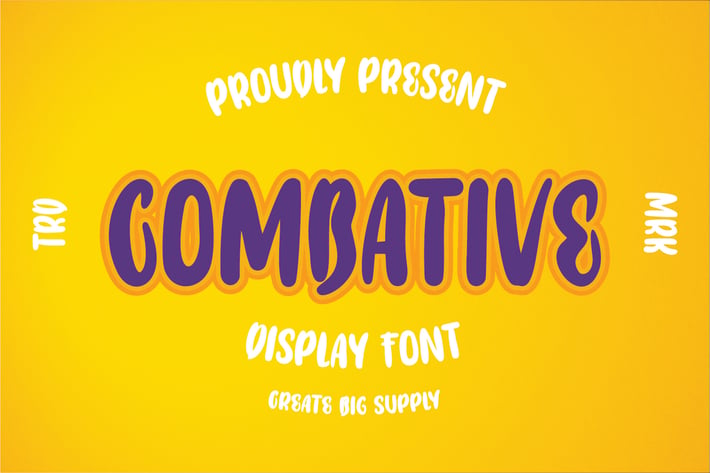
Combative - Display Font
Combative display Font. This type of font is very suitable to be applied especially to logos, and various other formal forms such as invitations, labels, logos, magazines, books, greeting / wedding cards, packaging, fashion, make up, stationery, novels, labels or anything. type of advertising objective.
Features:\
Uppercase & lowercase
Numbers and punctuation